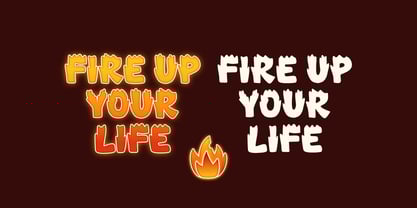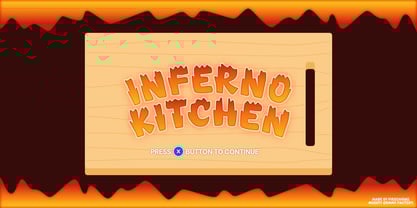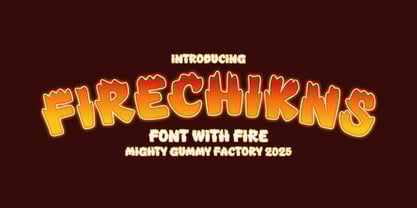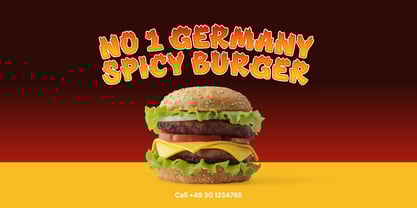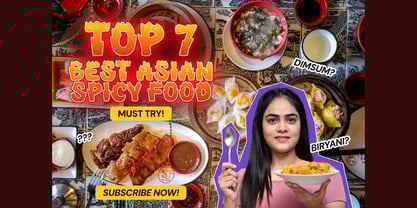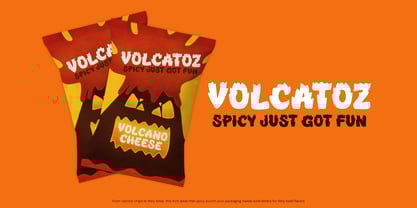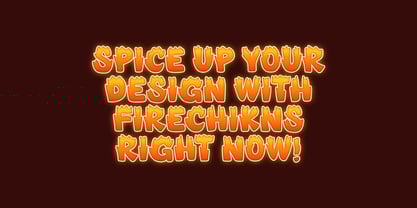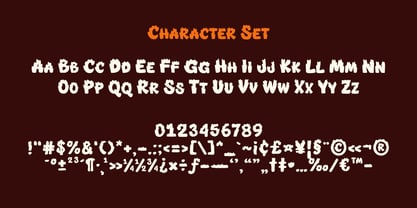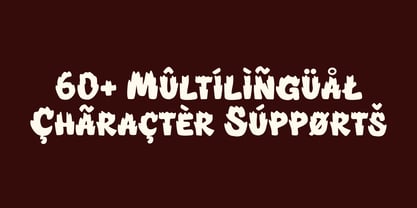
The MGF Firechikns Font Family was designed by Gumilang Anggara Ruslan and published by Mighty Gummy Factory. MGF Firechikns contains 1 styles. More about this family
FIRECHIKNS is a bold and playful fire-themed display font with flame-topped letters, perfect for kids’ branding, spicy food logos, hot sauce packaging, comic covers, YouTube thumbnails, and fun merchandise. Designed with rounded, handcrafted shapes and a quirky personality, this font adds instant energy and warmth to any creative project.
🔥 Spicy & Playful Vibe
• A fire-themed font full of personality, warmth, and cartoon charm
• Designed to feel fun, energetic, and just a little bit wild
🔥 Perfect for Pop Culture & Kids’ Content
• Ideal for YouTube thumbnails, food trucks, kids’ menus, fiery merch
• Adds instant flair to Instagram posts, party invites, or playful branding
🔥 Fun, Handcrafted Letterforms
• Rounded, soft edges with blazing fire tops on each letter
• Hand-drawn feel with quirky proportions to keep it light and friendly
🔥 Hot Use Cases
• Children’s book titles & covers
• Spicy food branding & menu design
• Gaming overlays, stickers & streams
• Social media visuals & funny merchandise
• Posters, comics, and playful packaging
Key Features at a Glance
• All caps fire display font
• Cartoon-style flames built into each letter
• Works great with warm gradients, red-orange palettes
• Easy to use with bright or dark backgrounds
• Super attention-grabbing in thumbnails, packaging, and signage
Don’t settle for bland fonts when your idea is on fire. FIRECHIKNS delivers the heat, turning even simple headlines into blazing visual experiences. If you want something playful yet powerful, hot yet humorous—this font is the flaming spark you need.